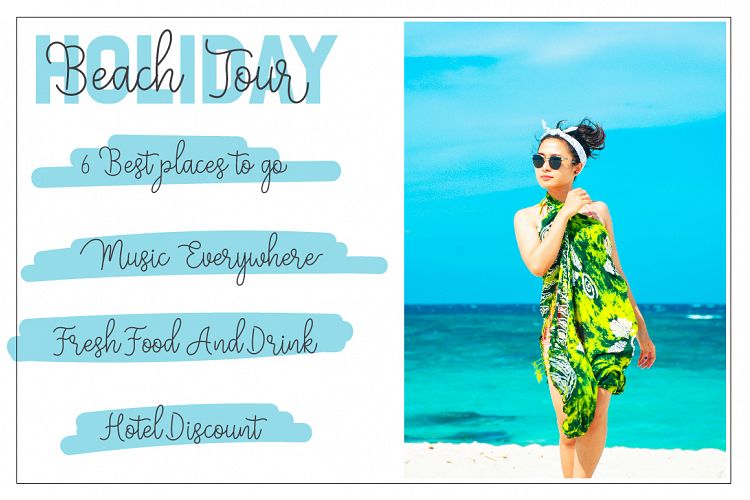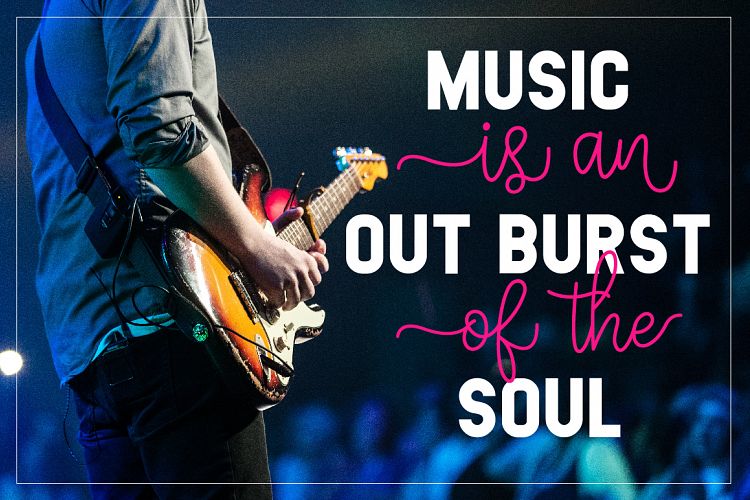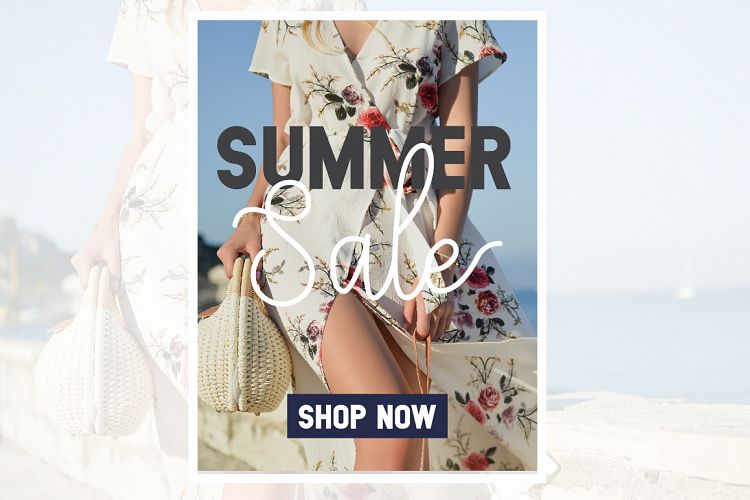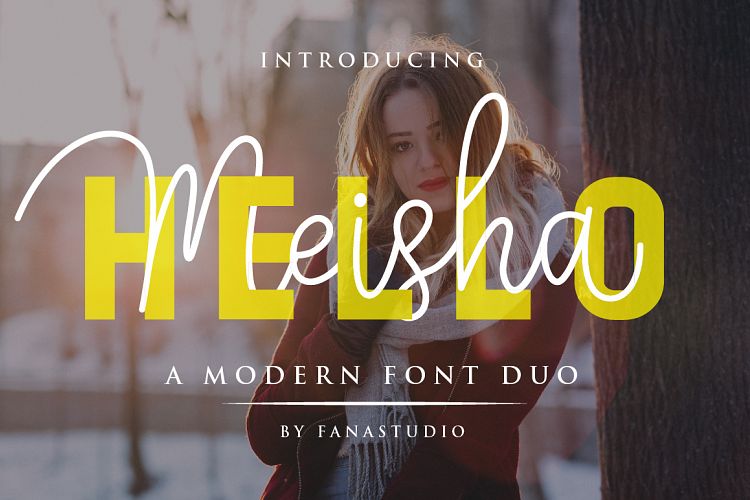
Hello Meisha Font Duo
Hello Font Lovers! With the suave new font duo consisting of a sophisticated signature-style script, and an elegant, classy, all-caps serif font. Introducing Hello Meisha Font. Hello Meisha Font Duo, a stylish Font Style. This beautiful script font offers your personal touch to your latest art project with elegant, classy and modern look.
HelloMeisha a Modern Font Duo offers gorgeous typographic will perfect for many different project such as logos & branding, invitation, stationery, wedding designs, social media posts, advertisements, product packaging, product designs, label, photography, watermark, special events or anything that need handwriting taste.